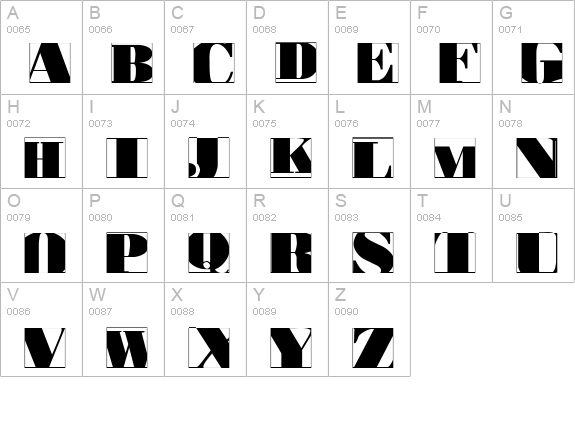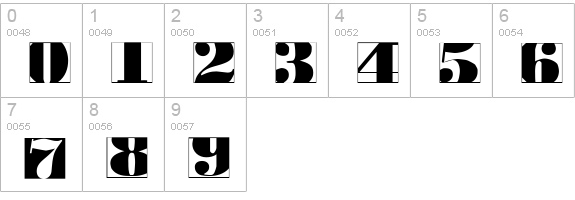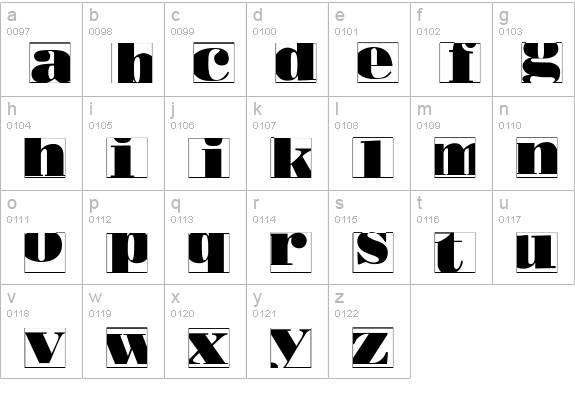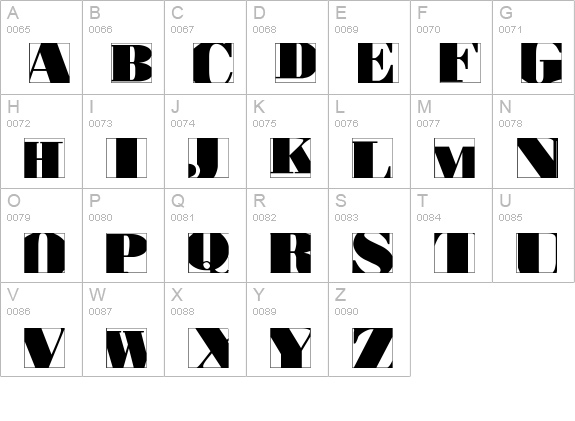
BodoblackSquaresInvers font is a bold and striking typeface that commands attention with its unique design. The sharp edges and square elements give it a modern and edgy look, perfect for making a statement in your designs. This font exudes confidence and strength, making it ideal for headlines, logos, and branding projects. What makes BodoblackSquaresInvers font even better is that it is available for free download at FontsMarket.com. So, whether you're a designer looking to add a touch of boldness to your creations or simply want to experiment with a new typeface, BodoblackSquaresInvers font is a fantastic choice. Download it today and unleash your creativity with this powerful and eye-catching font.